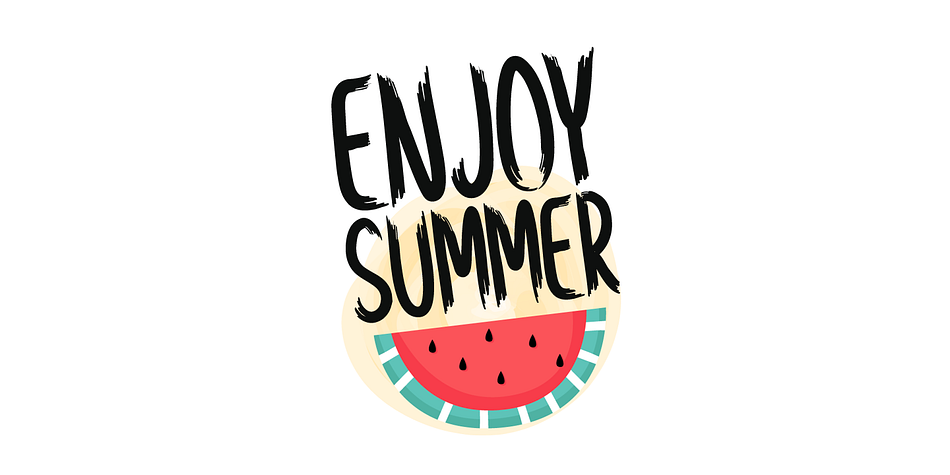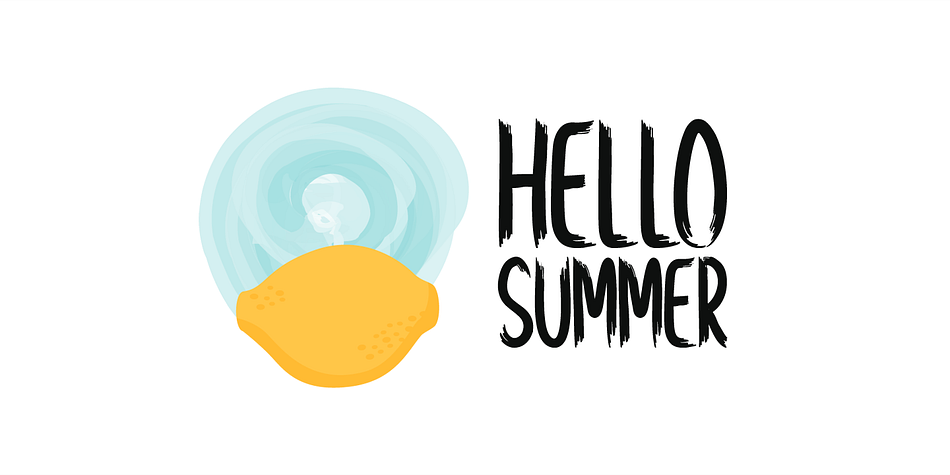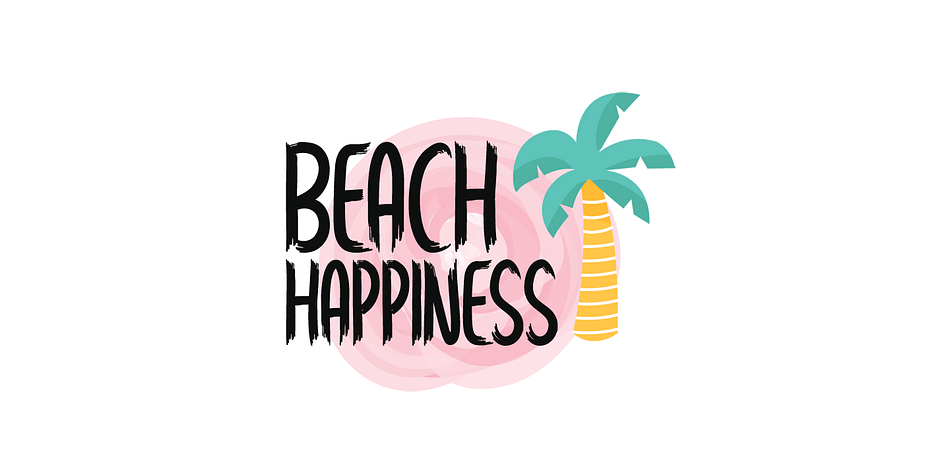
Designed by Md. Shohail Bhuiyan, Summer is a brush display font published by Seemly Fonts.
Summer is a brand new handwritten brush font. Summer is perfectly suited for stationery, logos, t-shirt, paper, print design, website header, photo frame, flyer, music cover, poster, image slider, and much more.
Style | Brush Display |
Designer | Md. Shohail Bhuiyan |